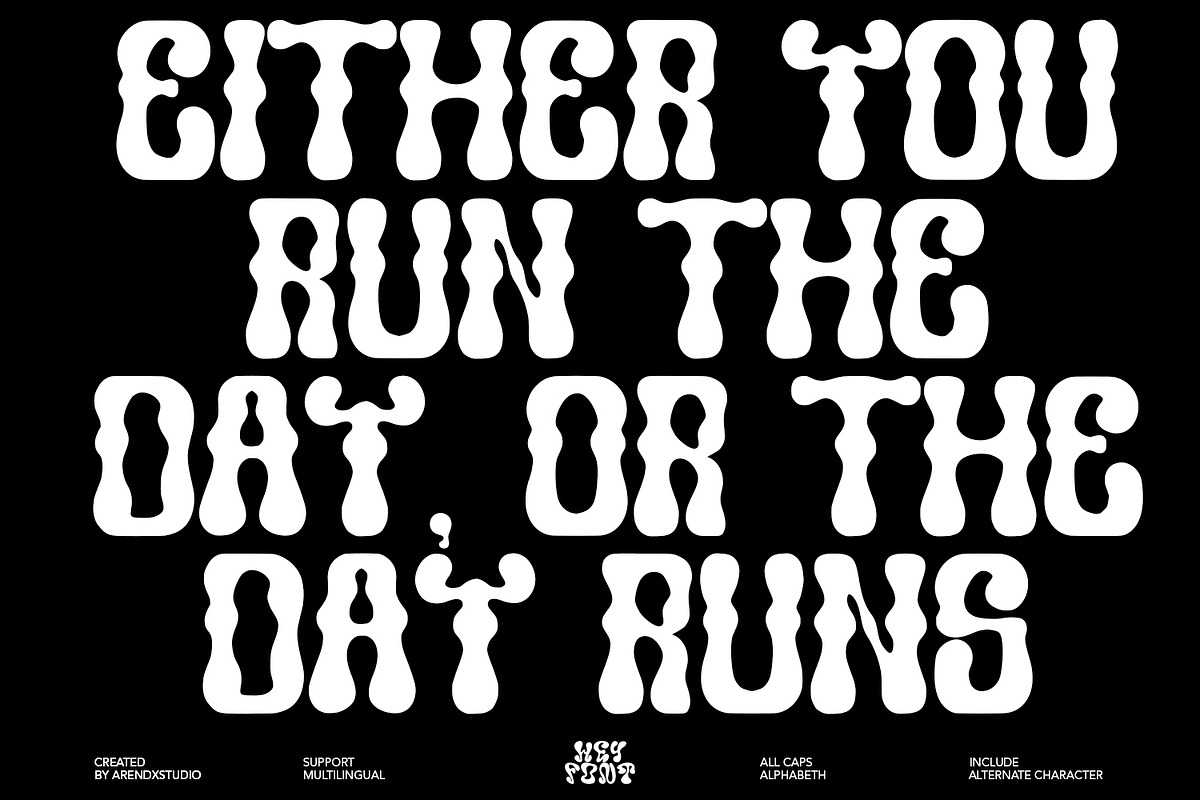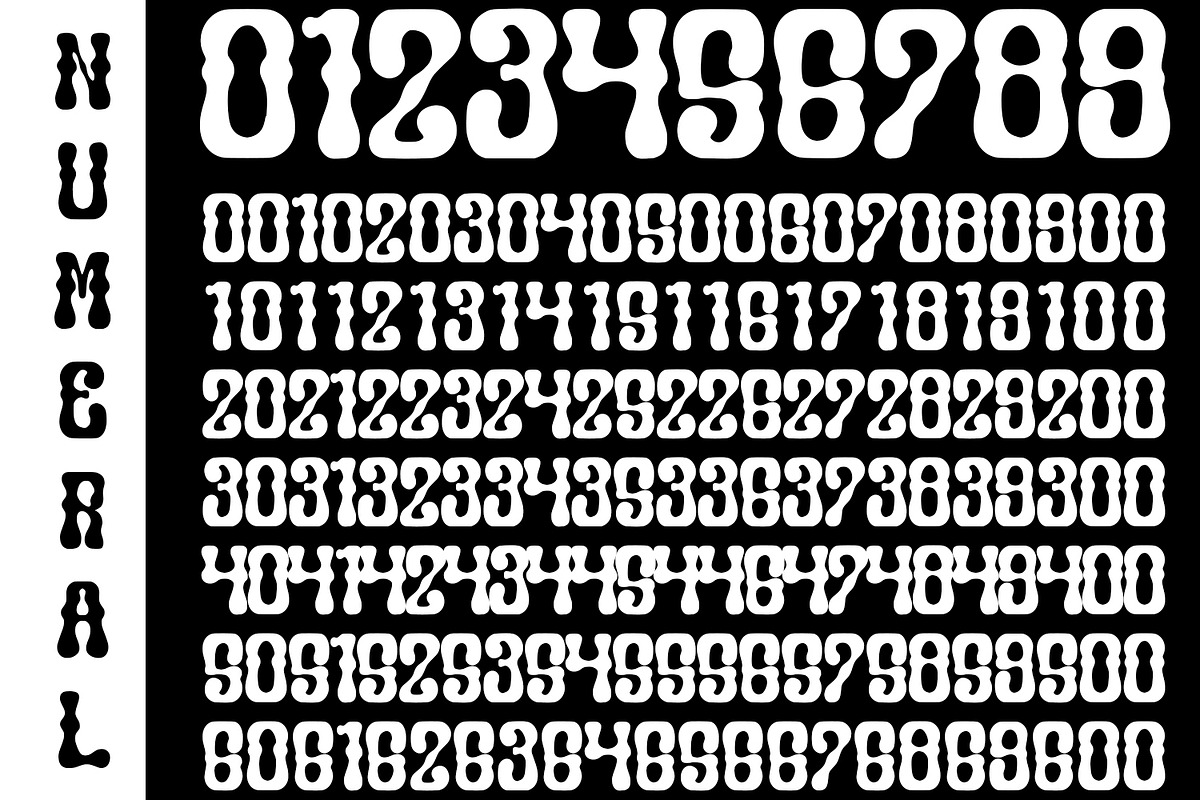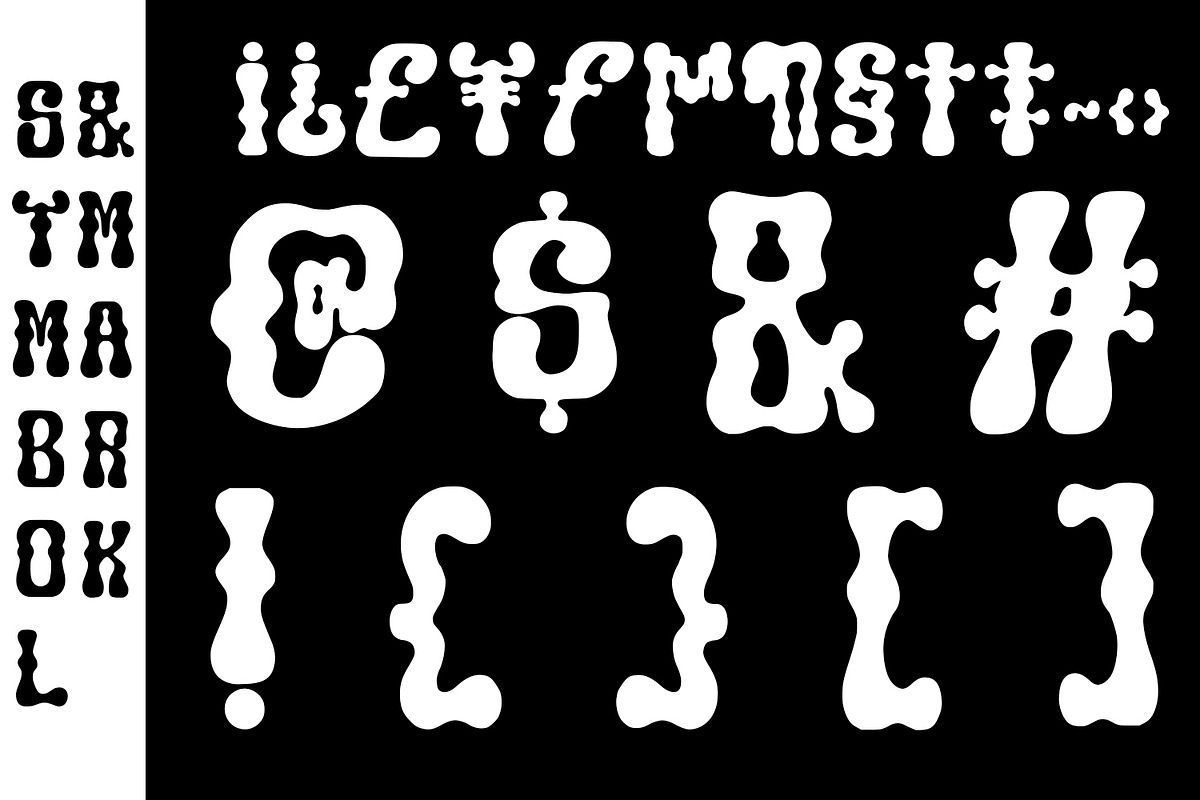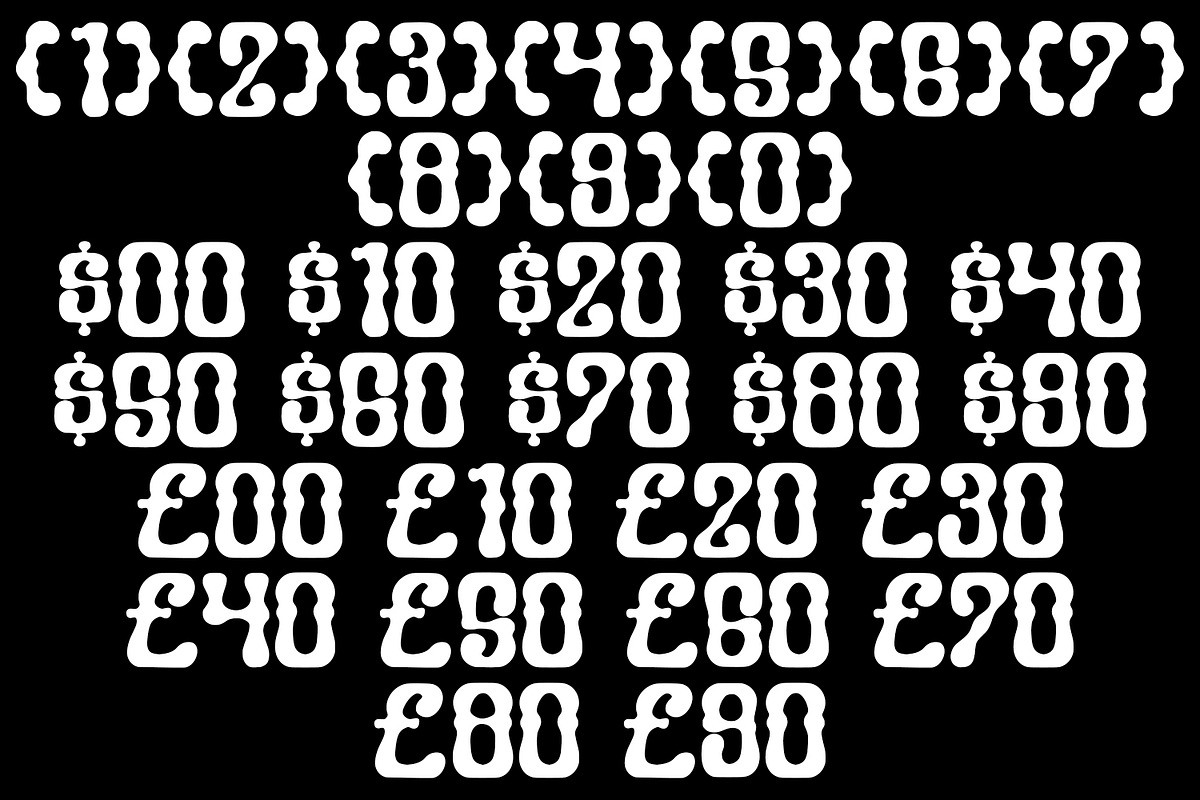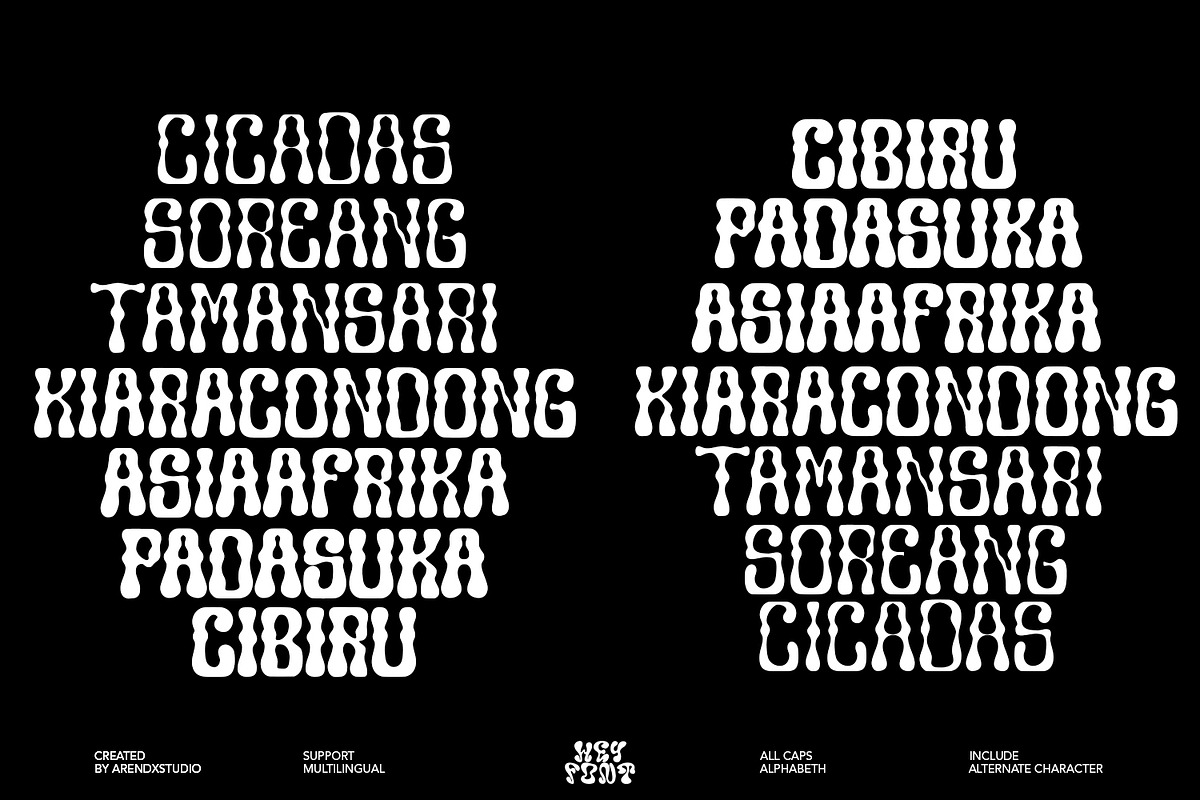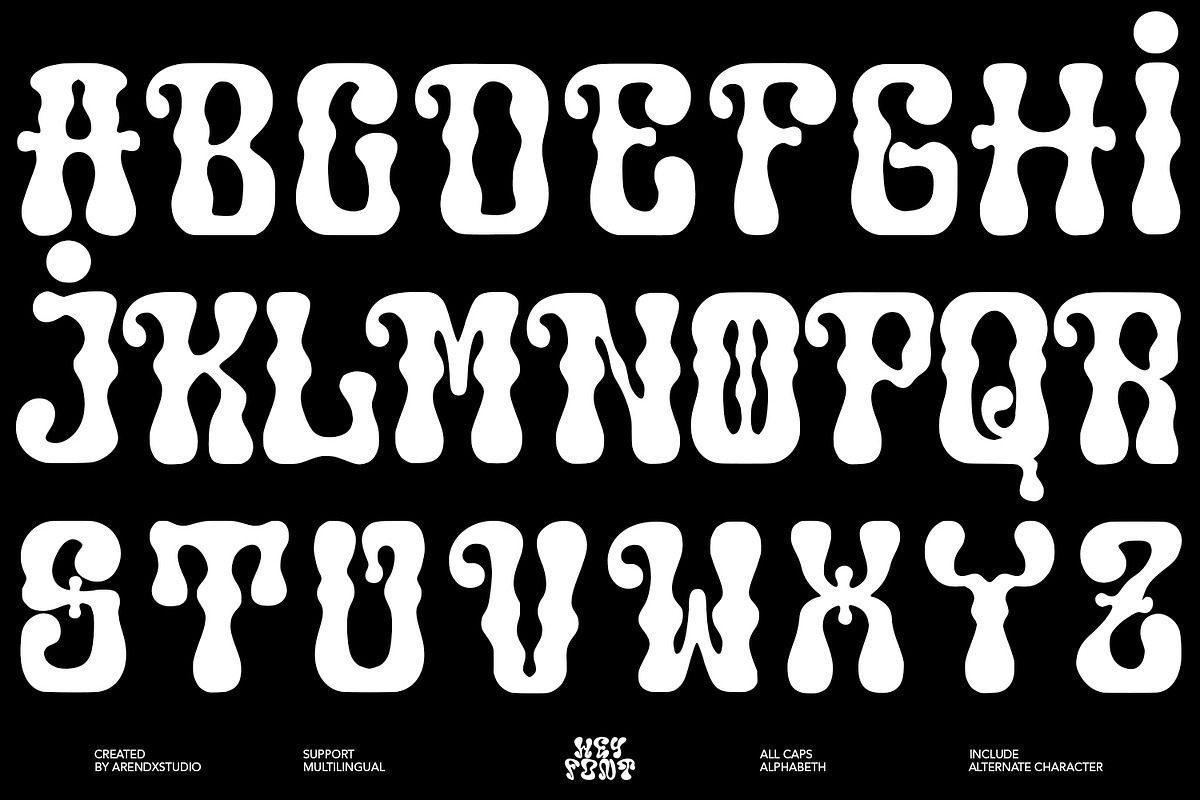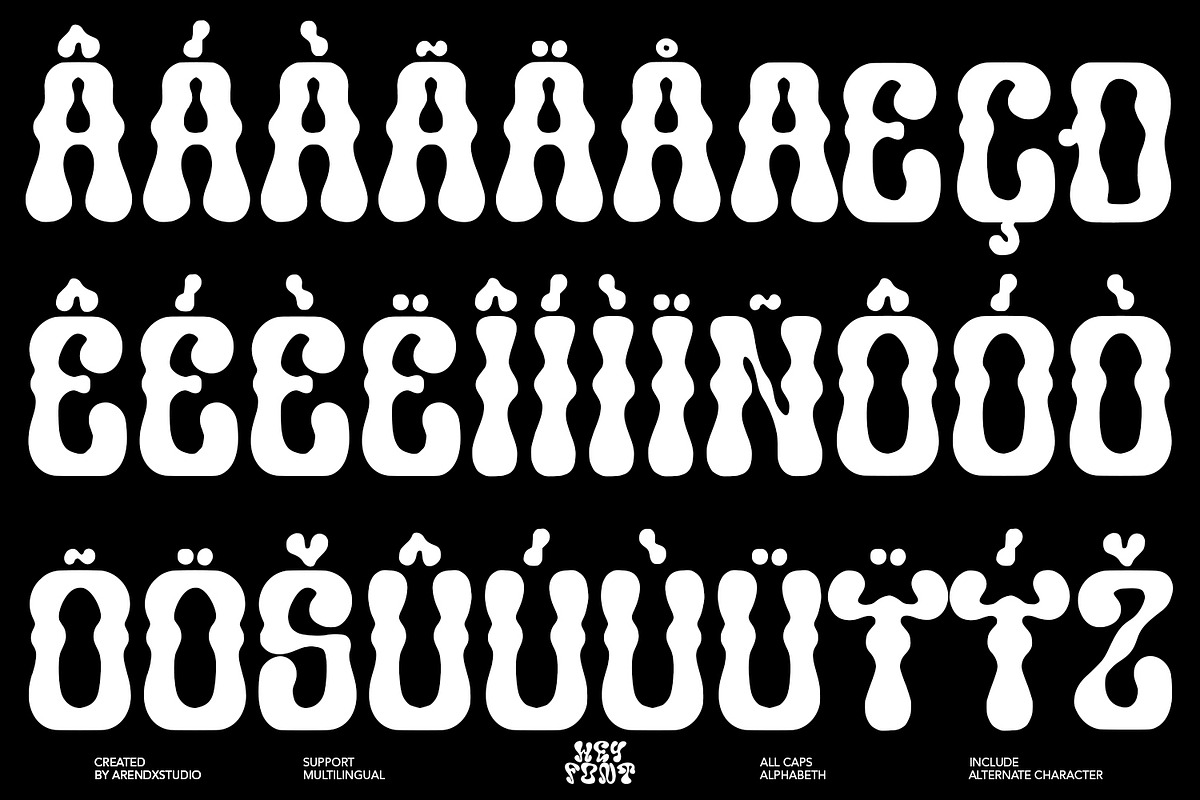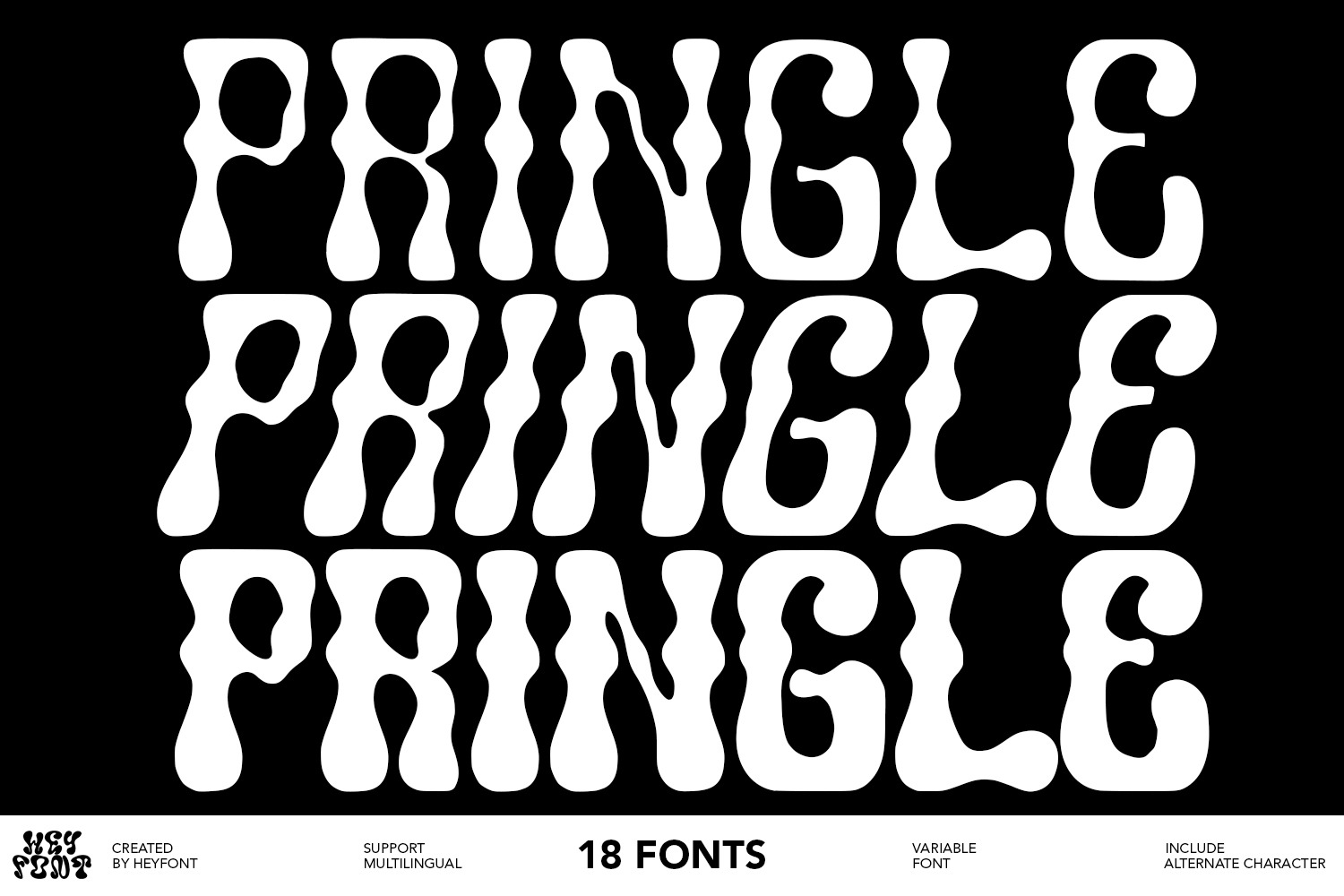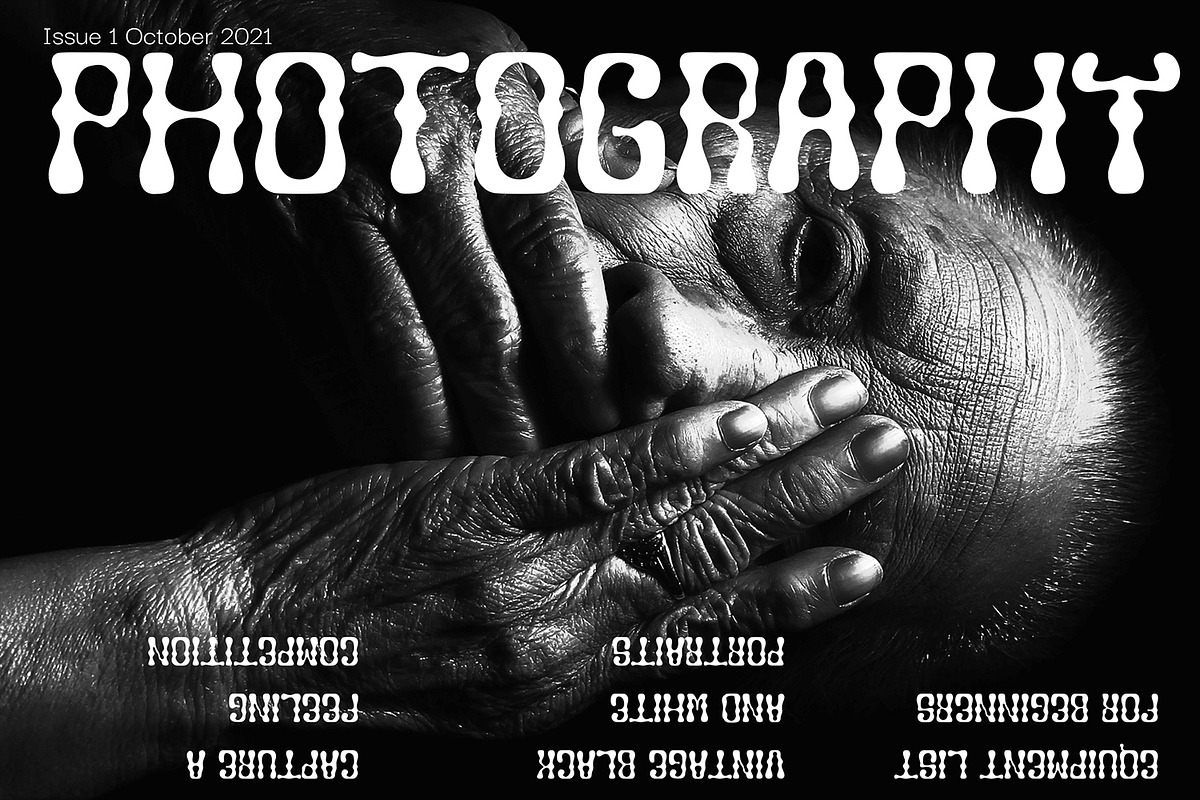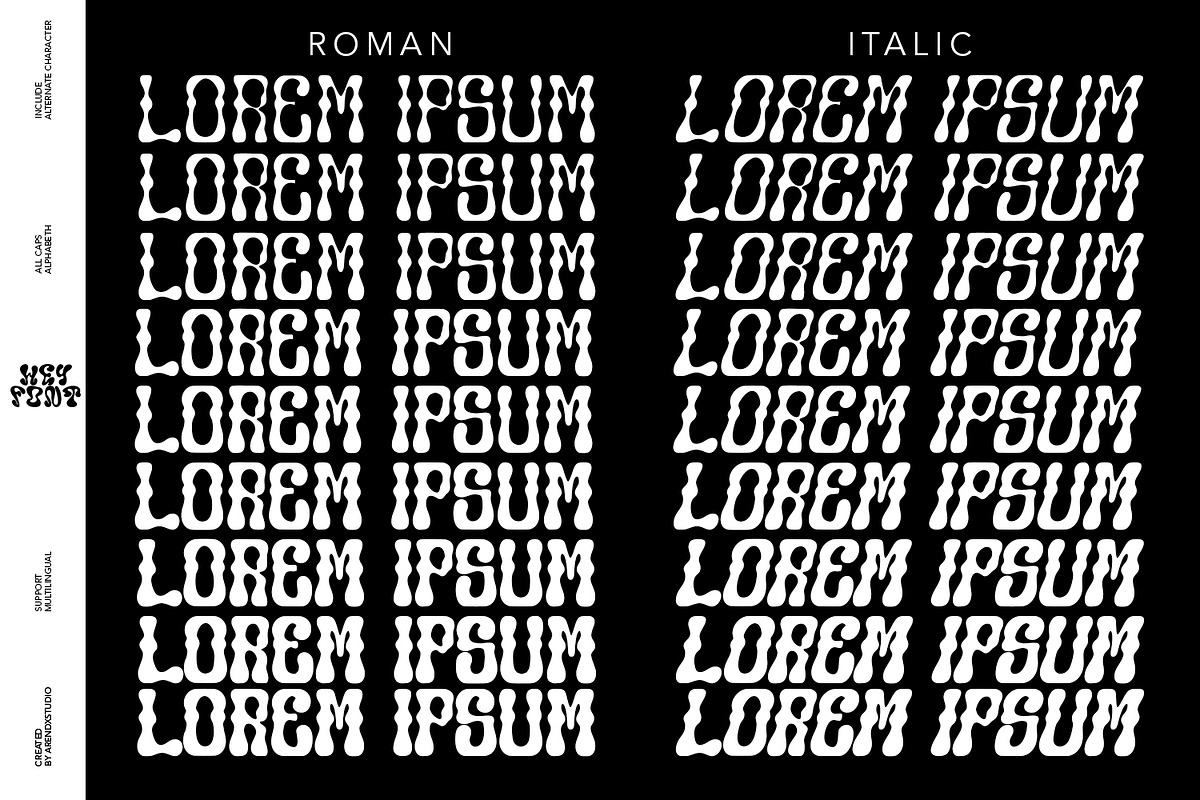
Pringle Unique Variable Font
Pringle - Display Variable Font Font is a versatile, bold and unique serif font. Combination between high contrast and Brutalism style, Vallerine has a unique style with stylistic, alternates, ligatures and supports multilingual languages.